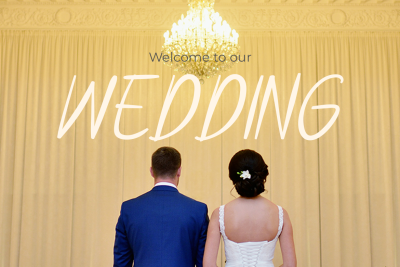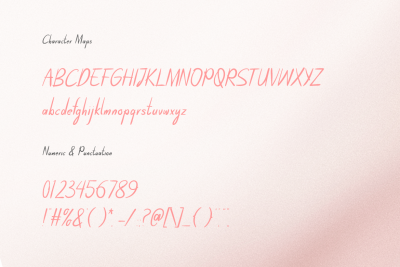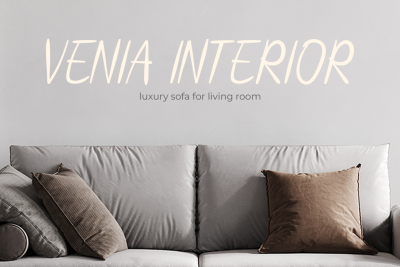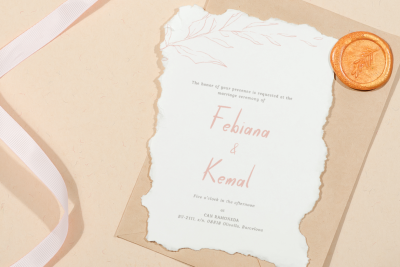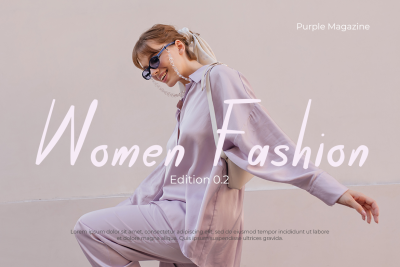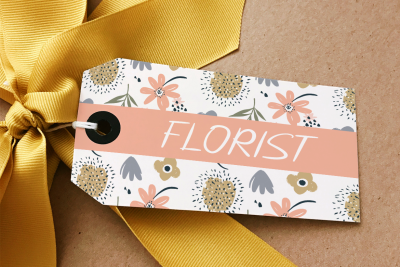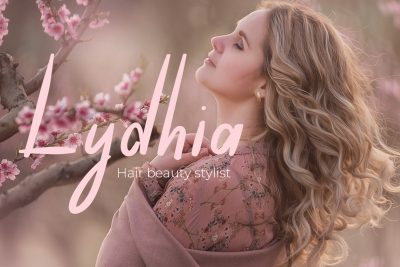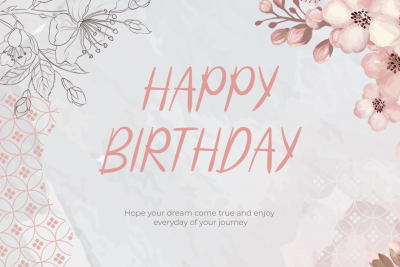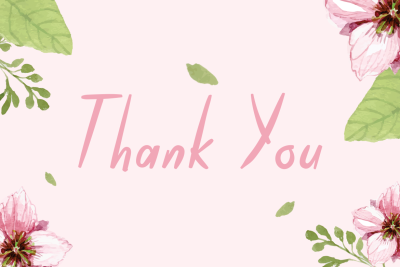
Handwriting Font Serendipity is an elegant, flowing script that captures the beauty of handwritten calligraphy. With its smooth curves and graceful strokes, this font exudes sophistication and charm. Designed to bring a sense of natural movement and fluidity, Serendipity creates a delicate, personal touch that enhances any project.
The refined and balanced letterforms of Serendipity make it an excellent choice for those looking to add a soft, handwritten appeal to their designs. It combines modern and classic aesthetics, making it suitable for both contemporary and timeless compositions. The subtle variations in stroke weight mimic the natural imperfections of real handwriting, ensuring authenticity and warmth.
Additionally, Handwriting Font Serendipity is optimized for readability while maintaining its artistic quality. It works beautifully on both digital and print platforms, making it a versatile asset for various creative needs. Whether used for branding, social media, invitations, or personal notes, Serendipity adds a touch of elegance and sincerity to every piece.
Who Can Use Handwriting Font Serendipity?
Handwriting Font Serendipity is perfect for designers, creatives, business owners, and individuals who appreciate the beauty of handwritten typography.
For designers, this font is an excellent tool for crafting high-end branding, packaging, and editorial projects. It conveys a sense of elegance and professionalism, making it ideal for luxury brands, beauty products, and fashion labels. Serendipity adds a refined touch to business logos, product labels, and creative layouts.
Event planners and invitation designers will find Serendipity an ideal choice for wedding invitations, greeting cards, and stationery. Its soft, flowing nature perfectly complements romantic and celebratory themes, bringing a sense of sophistication to special occasions.
Social media influencers and content creators can use this font to elevate their visual identity. Whether designing Instagram stories, blog headers, or Pinterest graphics, Serendipity helps create a polished and cohesive brand aesthetic. It adds an artistic and personal feel to captions, quotes, and promotional materials.
Writers and poets can also benefit from Serendipityโs handwritten appeal. It works beautifully for book covers, journal entries, and poetry collections, enhancing the visual representation of words with its artistic, flowing design.
Overall, Handwriting Font Serendipity is the perfect choice for anyone who wants to add a refined, stylish, and personal touch to their creative projects. Whether for professional branding, event invitations, or digital content, this font ensures a timeless and captivating presence in any design.